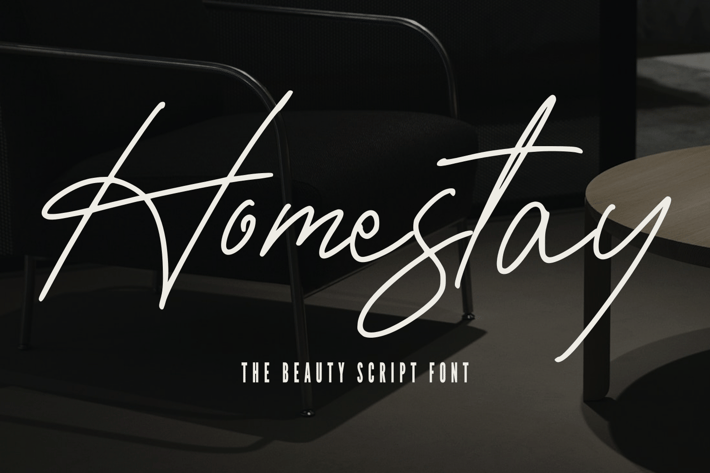
Homestay - The Beauty Script Font
Homestay - The Beauty Script Font, every single letter has been carefully crafted to make your text looks beautiful. it's perfect for logos, name cards, magazine layouts, invitations, headers, or even large-scale artwork.